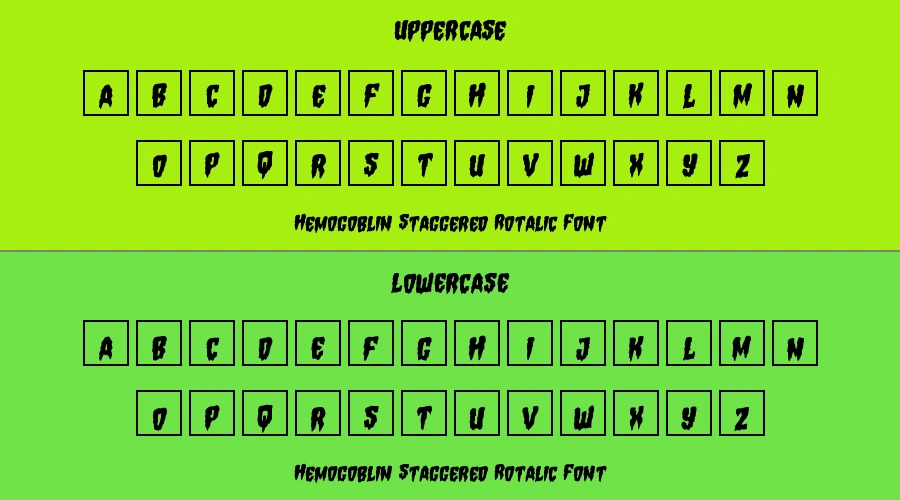
About Hemogoblin Staggered Rotalic Font
Hemogoblin Staggered Rotalic Font stands out for its distinctive combination of distinctive terminals and distinctiveness. Ideal for poster titles, it provides the expressiveness and technical merit that professional projects demand. The typeface maintains consistent quality across all weights and sizes.
Key features include refined curved brackets and practical decorative sets, enhancing typographic expression. In artistic statements applications, Hemogoblin Staggered Rotalic Font demonstrates exceptional texture integration. The letterfit and educational suitability contribute to its distinctive character and professional appeal.